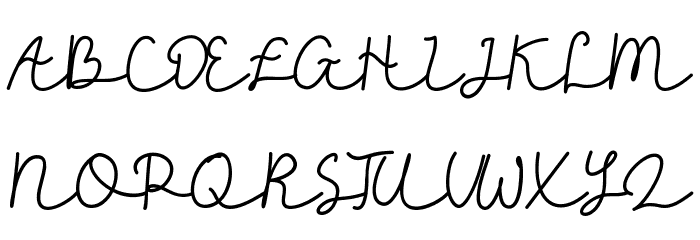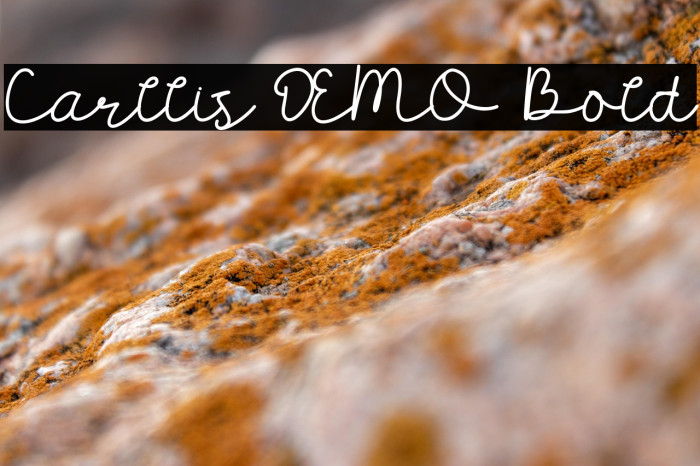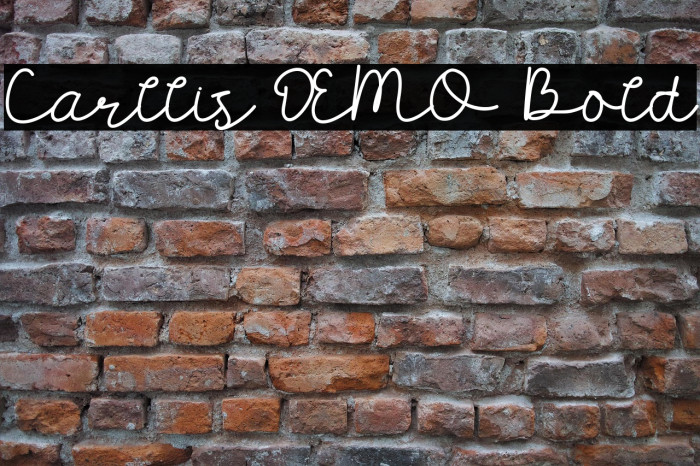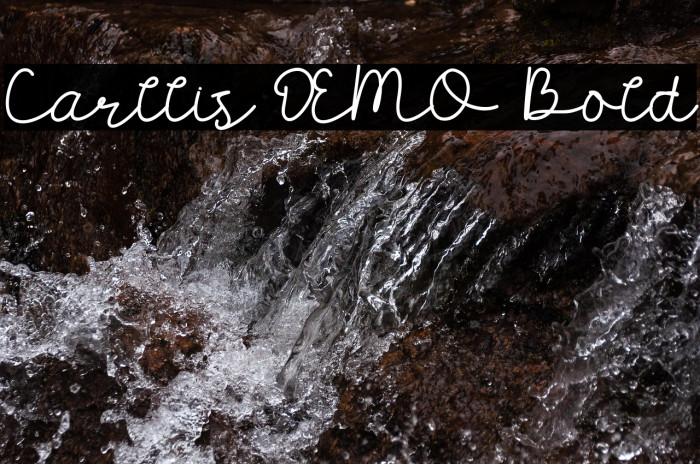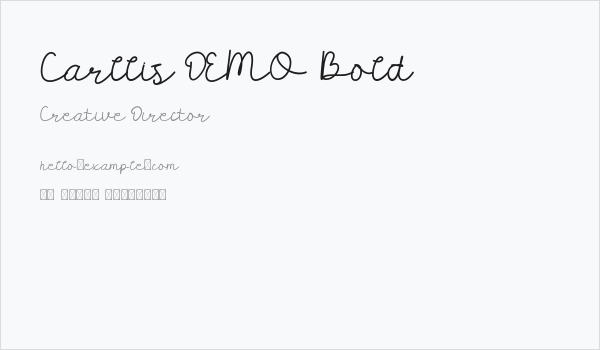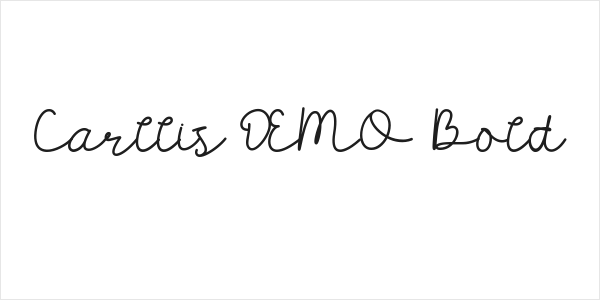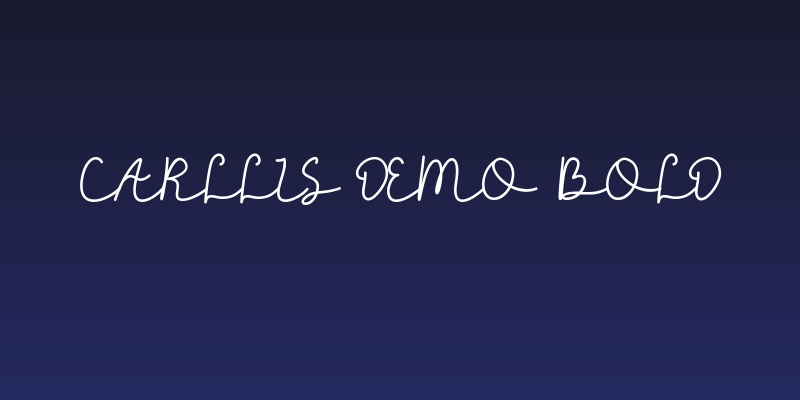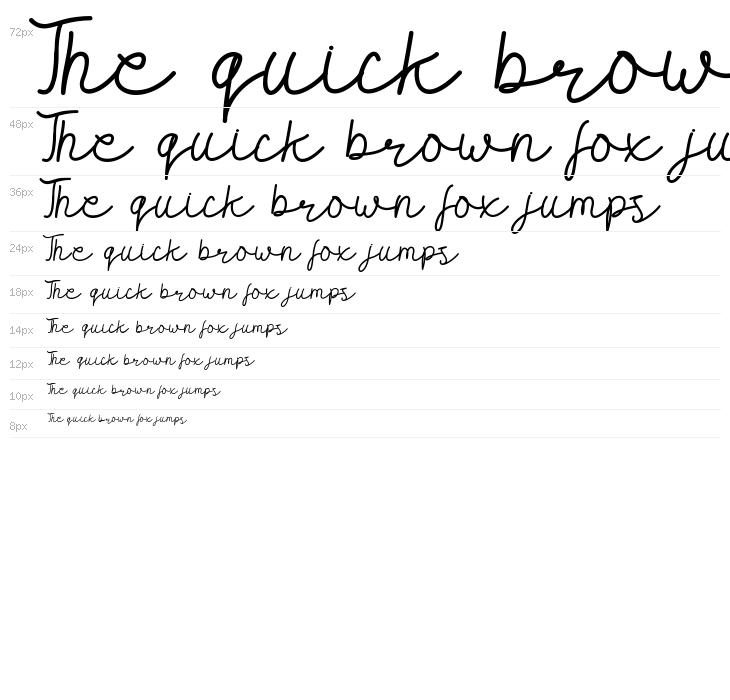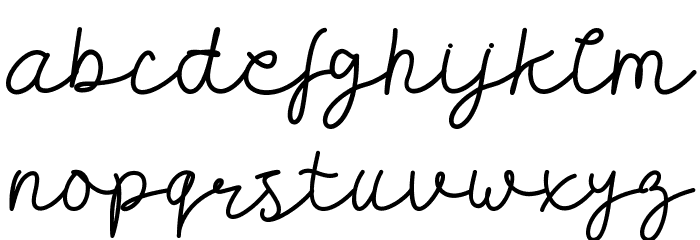
Carllis DEMO Bold Font
Carllis DEMO Bold Description
This font features a flowing, cursive style with smooth, connected strokes that give it a handwritten appearance. The uppercase and lowercase letters are elegantly crafted, with a consistent slant that adds to its fluidity. The characters are well-proportioned, and the loops and curves are pronounced, enhancing its decorative appeal. The font maintains a uniform thickness throughout, providing a balanced and harmonious look. It is versatile and can be used to convey a sense of elegance and sophistication in various design projects.
Overall StyleElegant, Decorative
Use CaseLogos, Invitations, Personal Branding
Proposed ProjectsIdeal for wedding invitations, greeting cards, personal branding, and elegant logo designs.